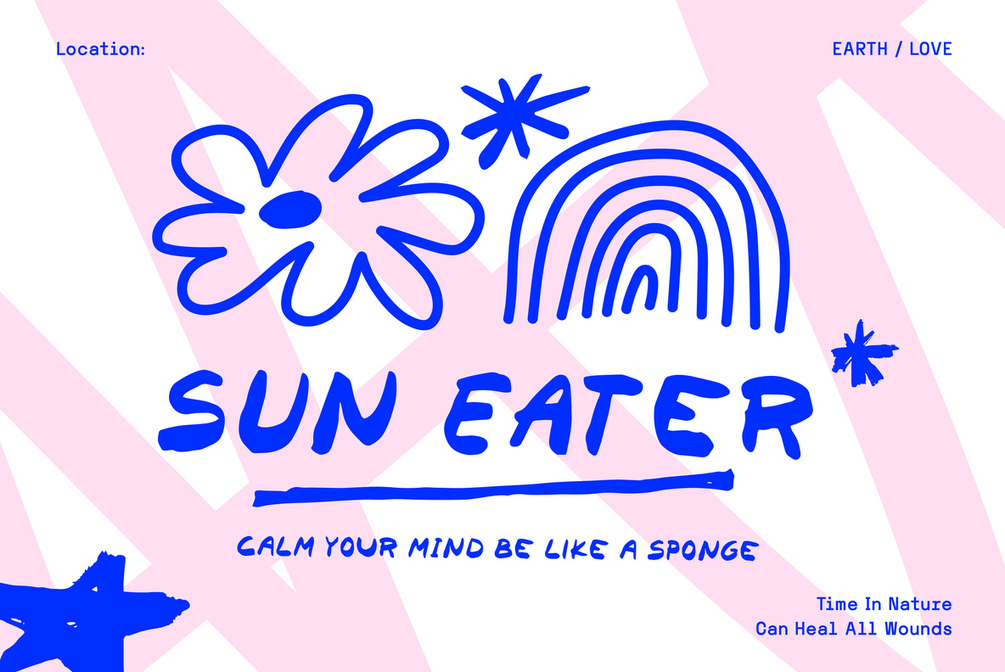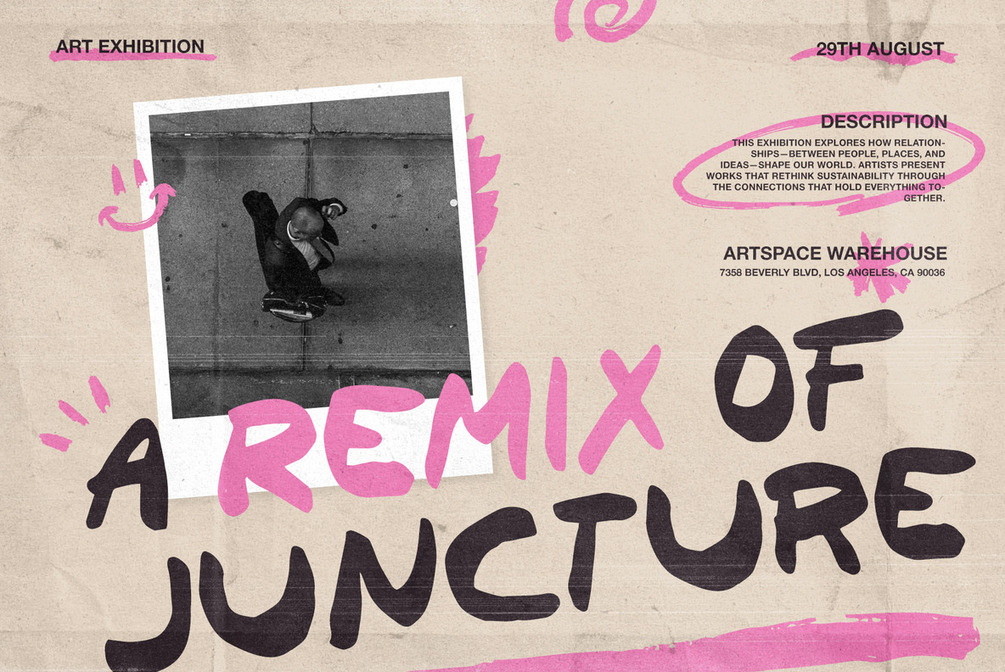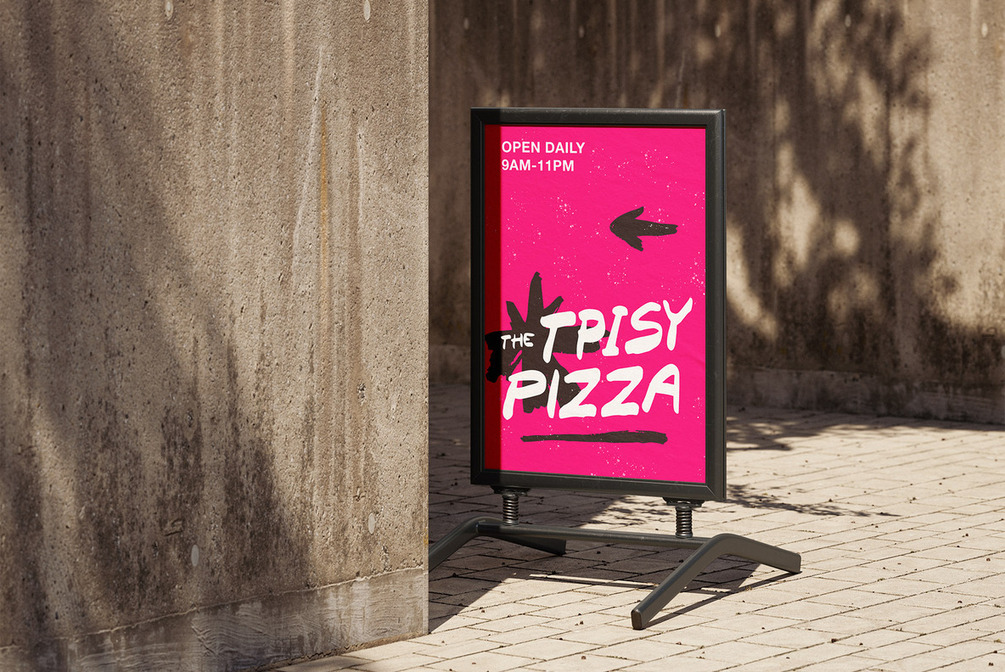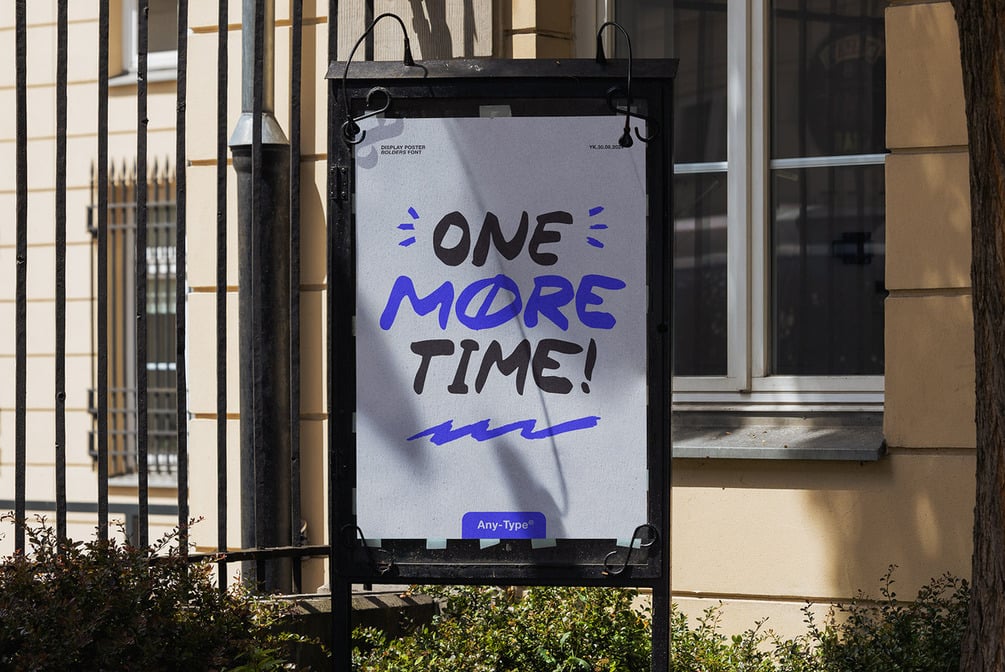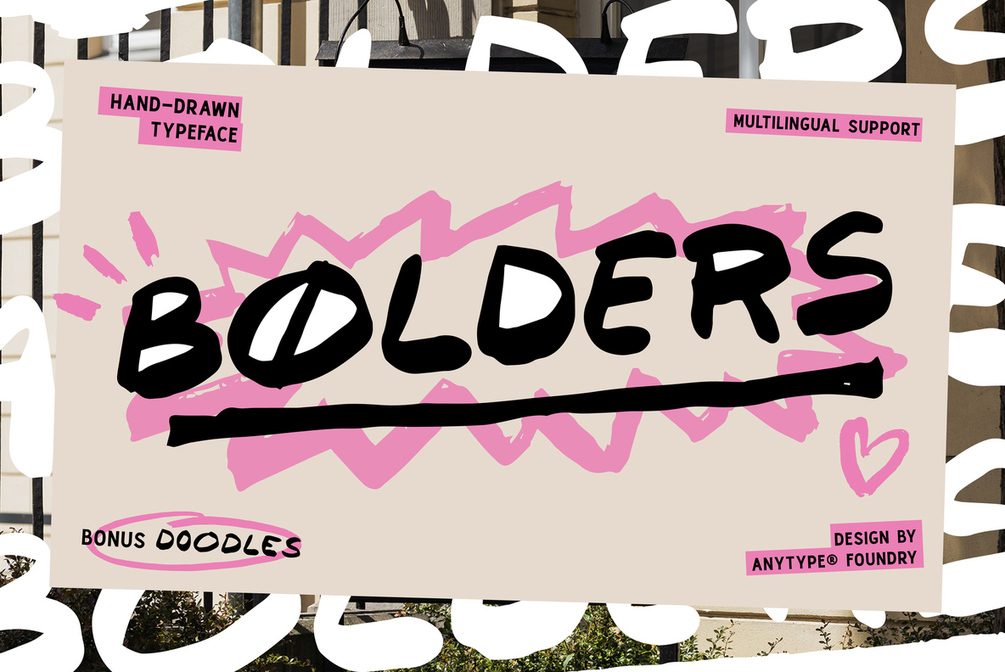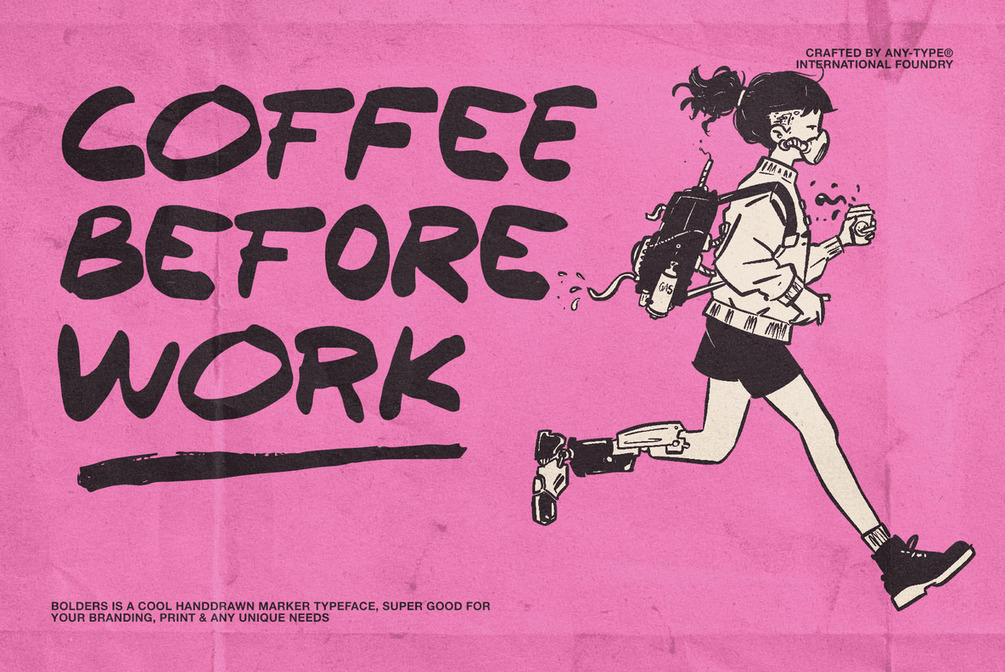
Bolders Hand-Drawn Font + Doodles
Bolders Hand-Drawn Font
This hand-touch vintage font has an authentic western feel with its handwritten style. It's perfect for designing anything that requires a unique touch, especially if you want your design to have some extra flair! this versatile typeface works well both online or off-line no matter what form it takes on it'll look great in posters but also logos/social media posts alike
• Multilingual Support